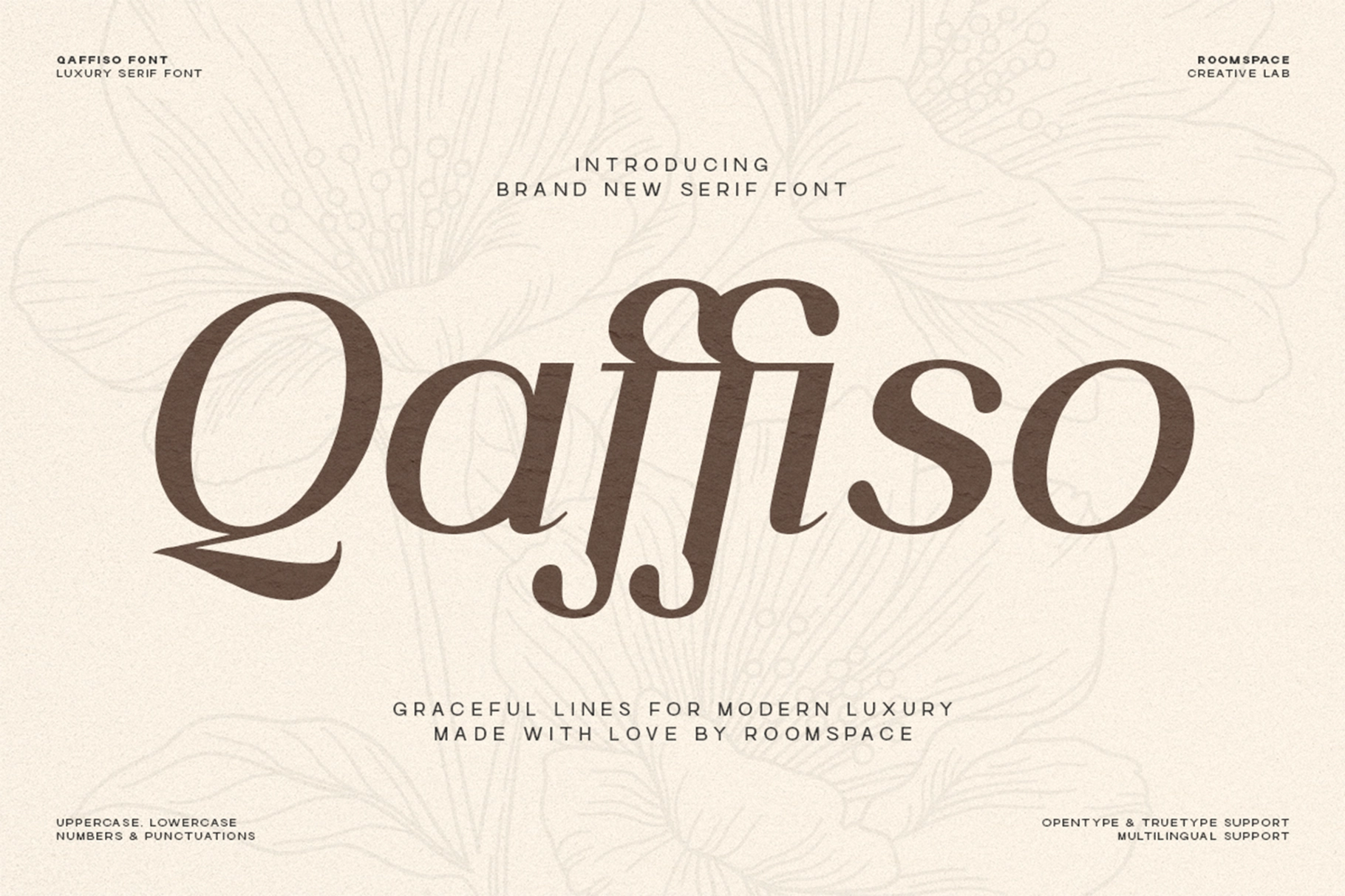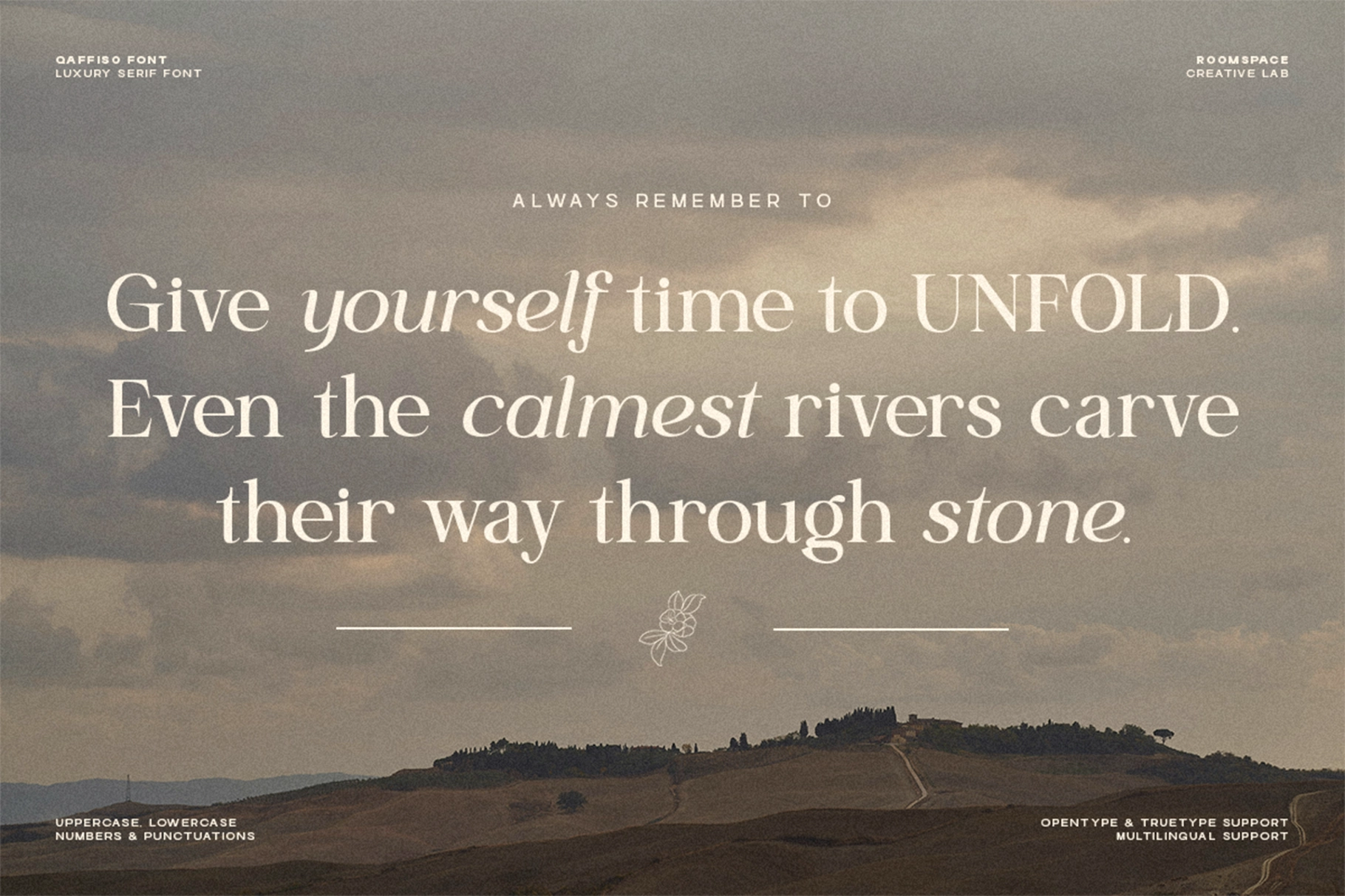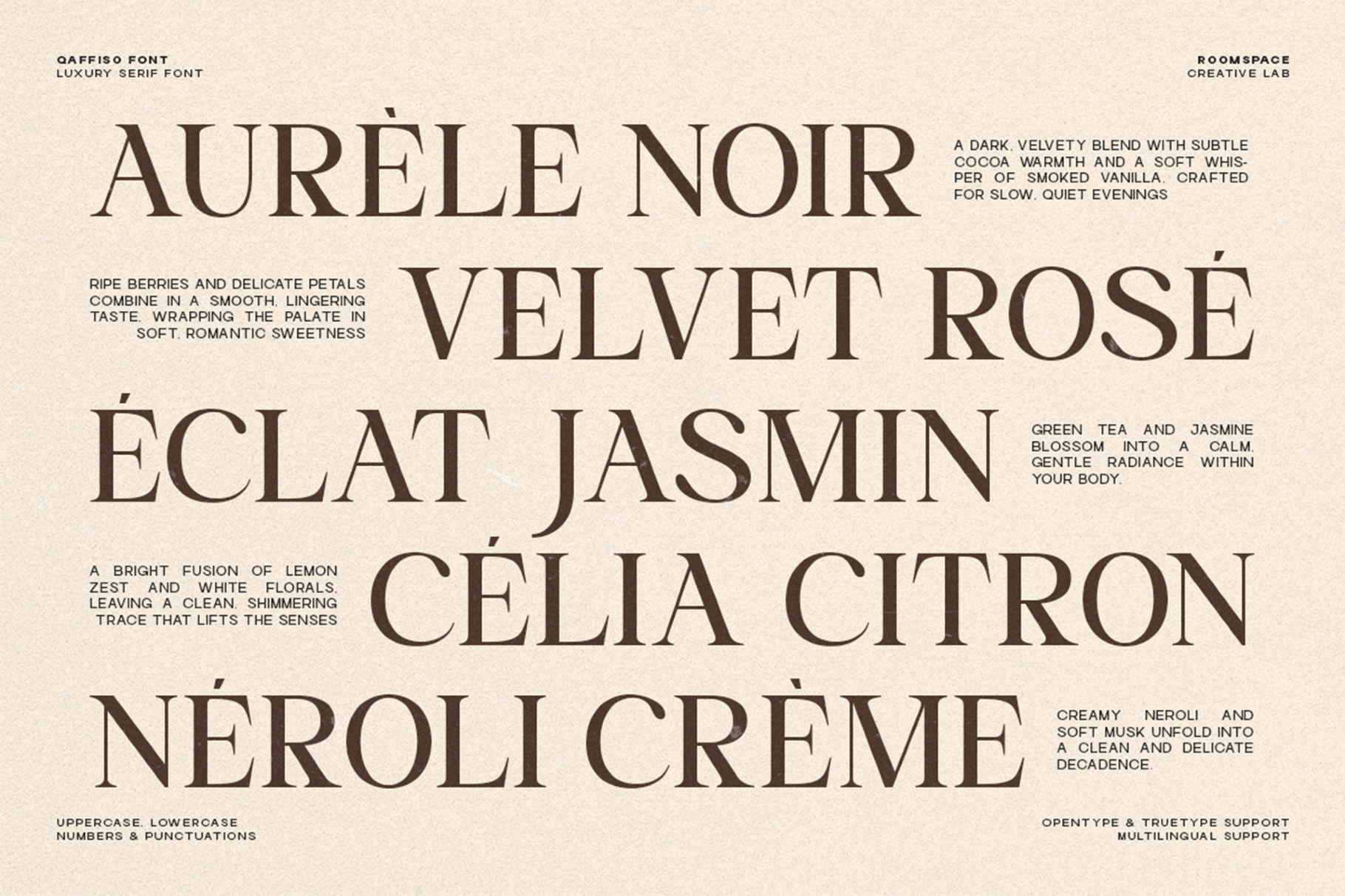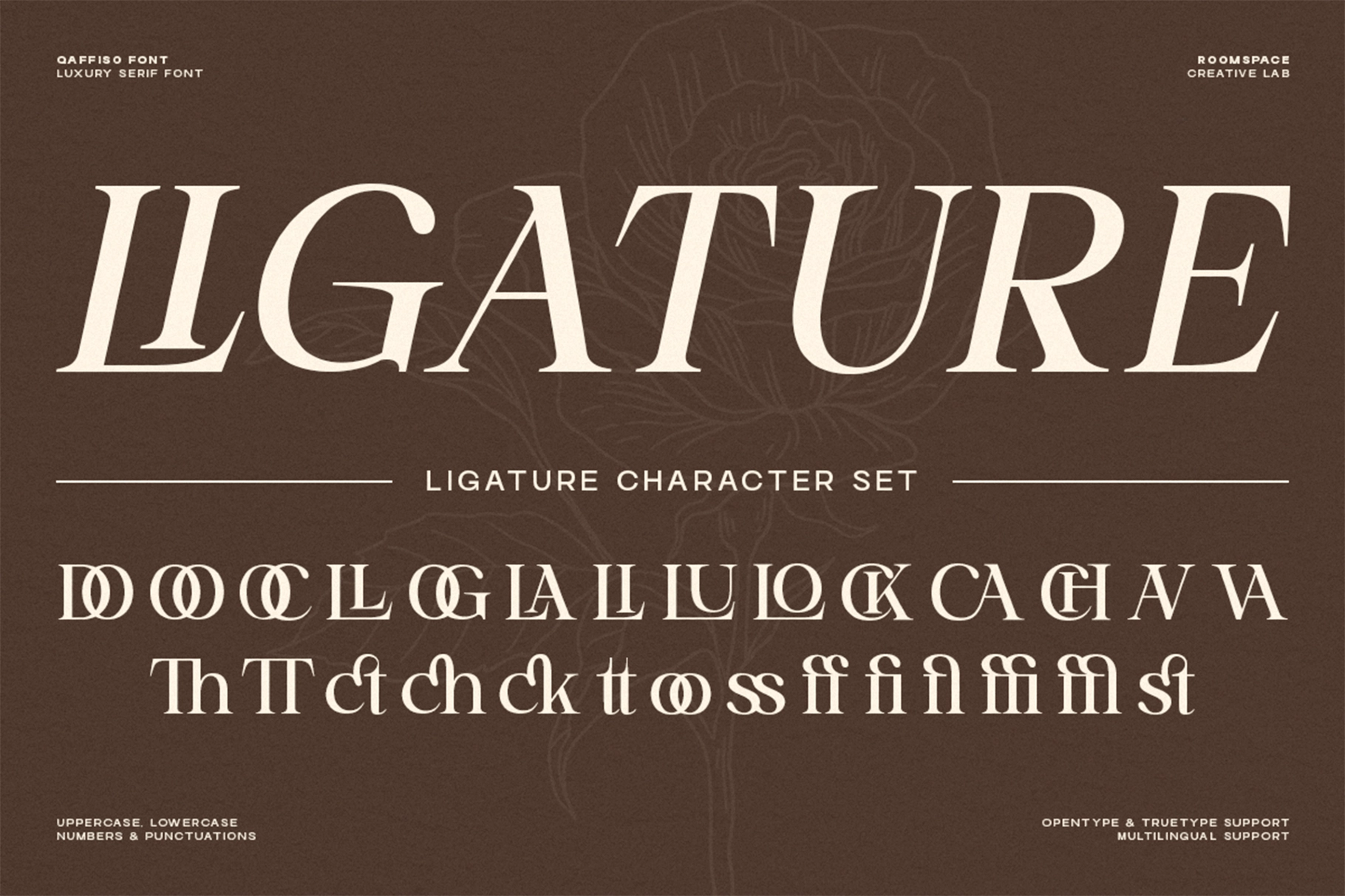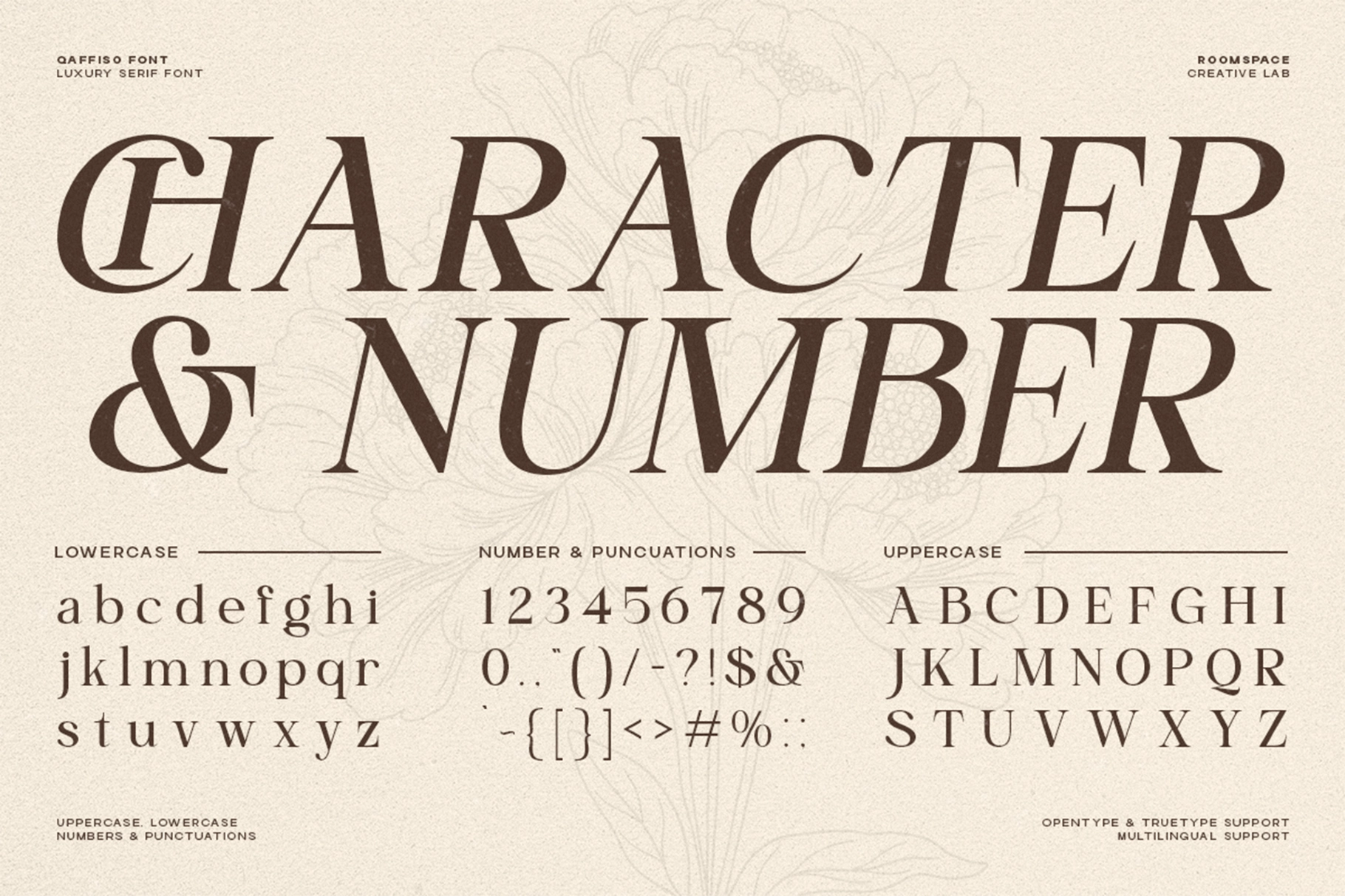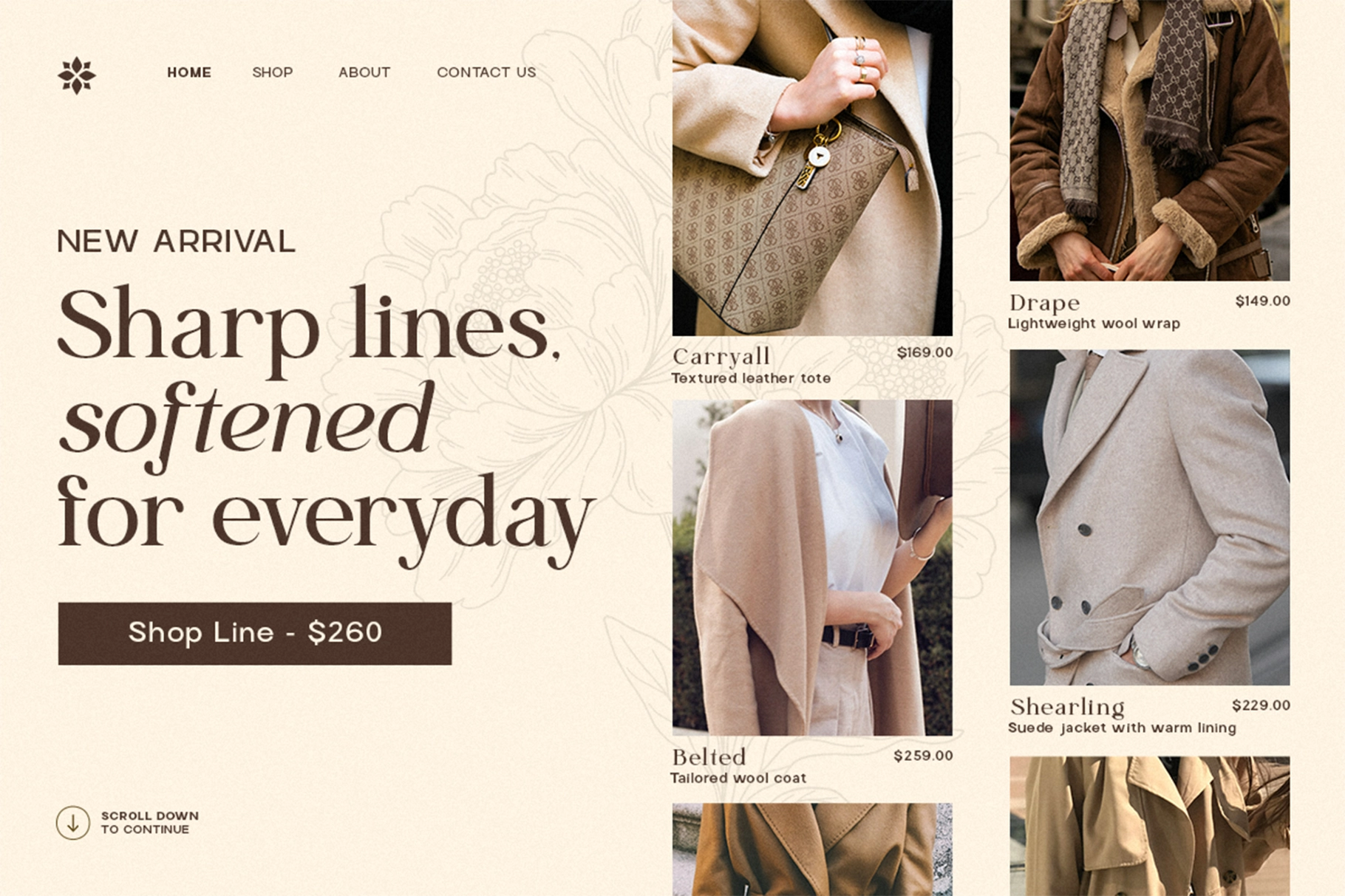
Qaffiso — Luxury Modern Serif Font
This luxury serif has slender contrast, graceful curves, and polished letterforms shaped for refined visual systems. Its sharp terminals, soft rhythm, and decorative ligatures give headlines a high-end character suited to fashion, beauty, lifestyle, and boutique design.
Qaffiso works beautifully for upscale branding, editorial spreads, perfume packaging, skincare labels, wedding invitations, fashion campaigns, logo design, boutique websites, social media quotes, lookbooks, product launches, art prints, and refined identity systems. It carries a delicate confidence — expensive, but not trying to split the bill.
- Ligature character set